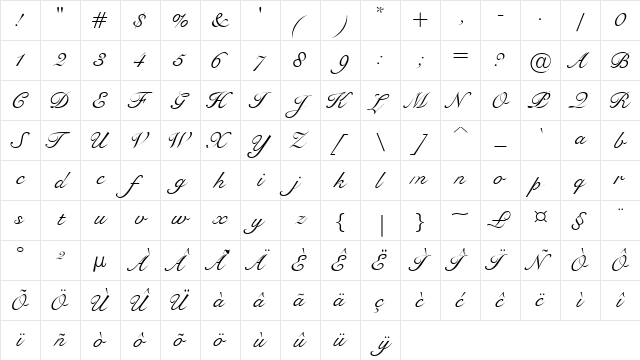
Christa Regular
Christa Family
Christa Regular
Design Context for Christa
Christa is a composed and adaptable typeface that performs quietly and consistently across a wide range of design contexts.